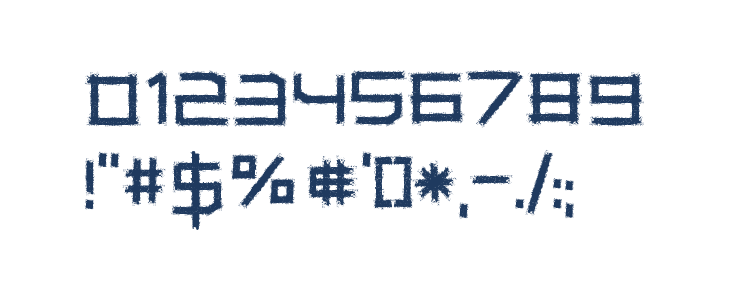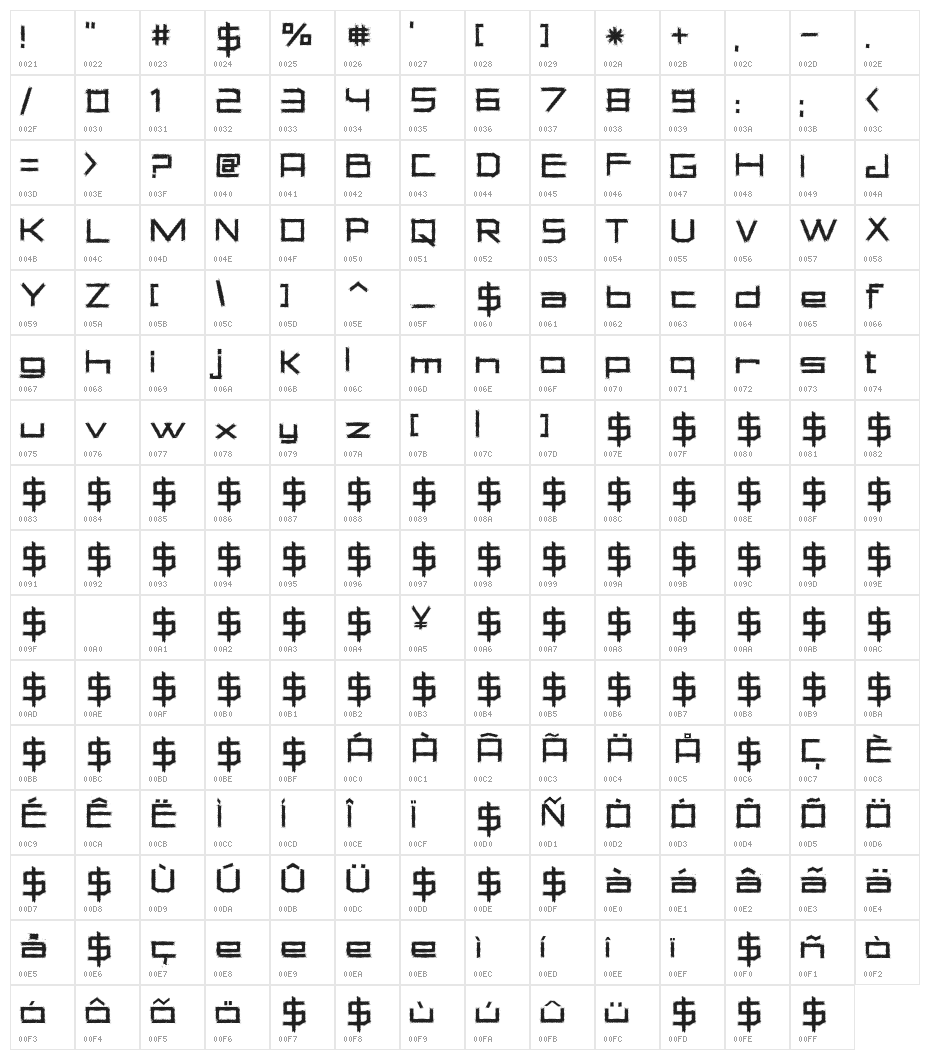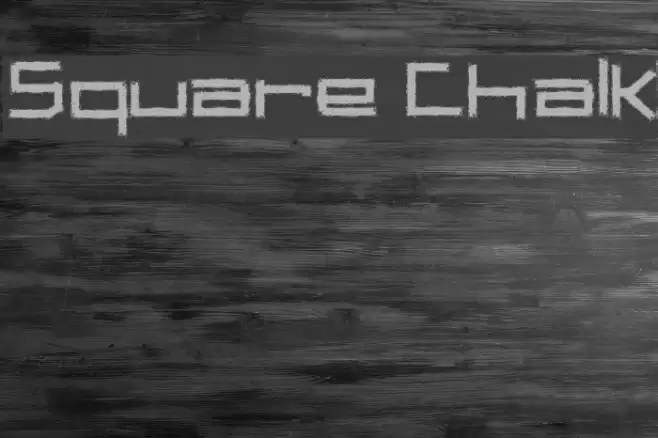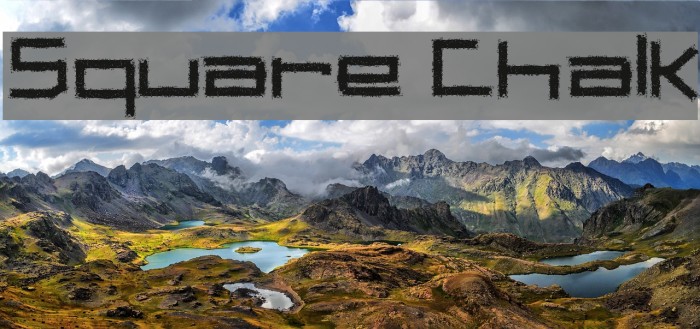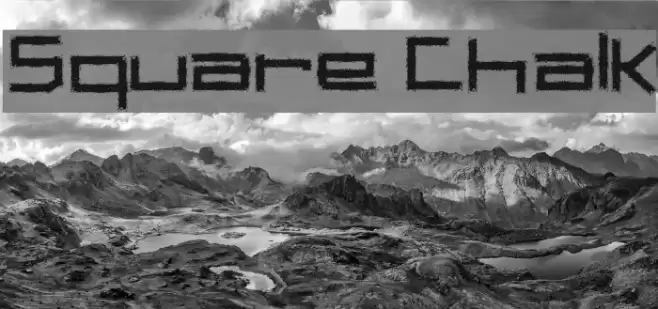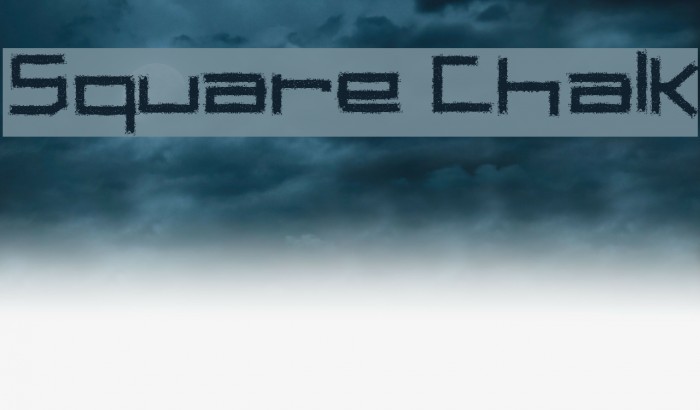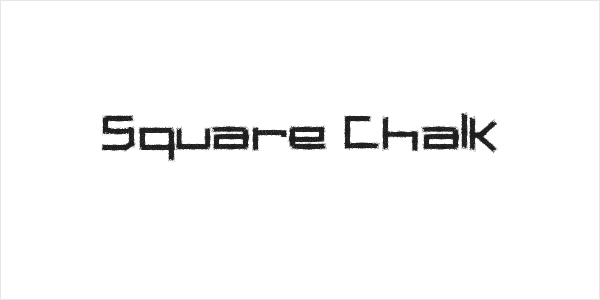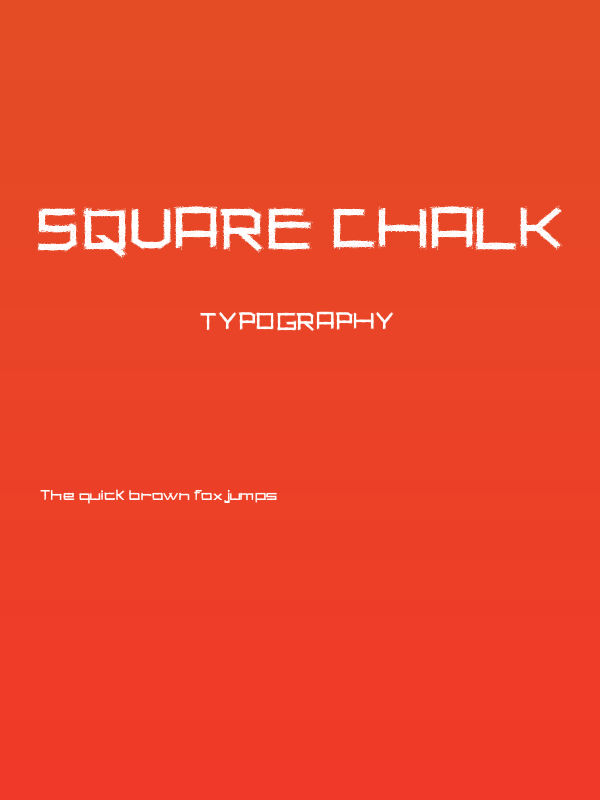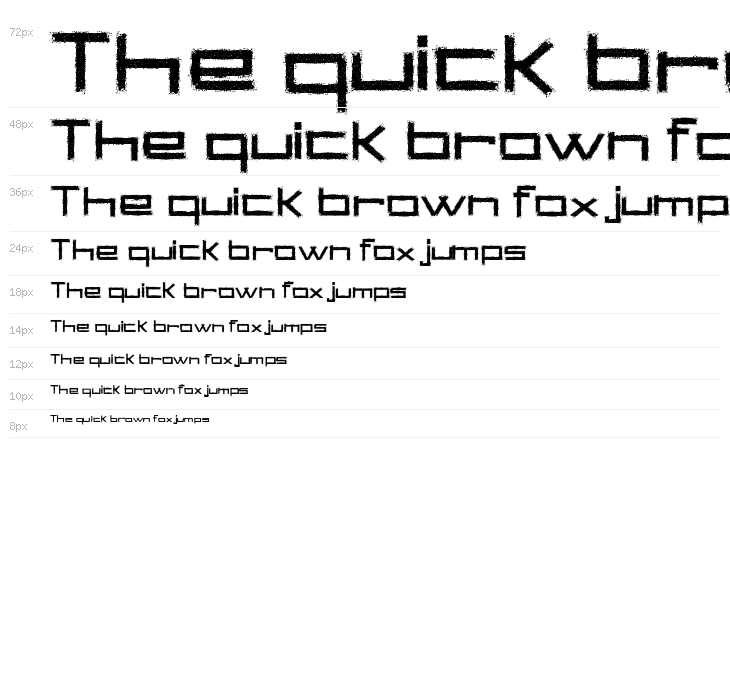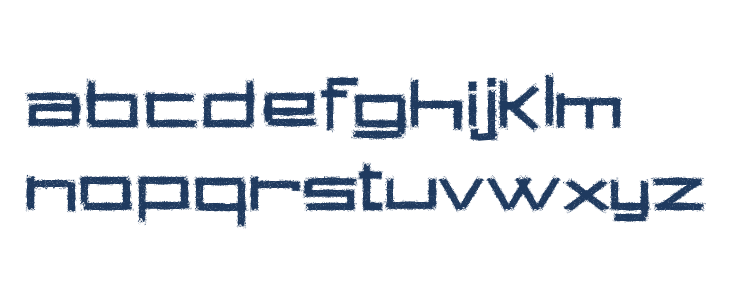
Square Chalk Font
Square Chalk Description
This font features a distinctive chalk-like texture, giving it a rugged and hand-drawn appearance. The characters are bold and slightly condensed, with a consistent stroke width that maintains a uniform look across both uppercase and lowercase letters. The edges of the characters are rough, mimicking the effect of chalk on a blackboard, which adds a playful and informal touch. The numerals and special characters follow the same stylistic approach, ensuring a cohesive design throughout. This font is ideal for projects that aim to convey a sense of creativity, informality, or educational themes.
| Proposed Projects | Ideal for educational materials, children's books, creative posters, and informal branding. |